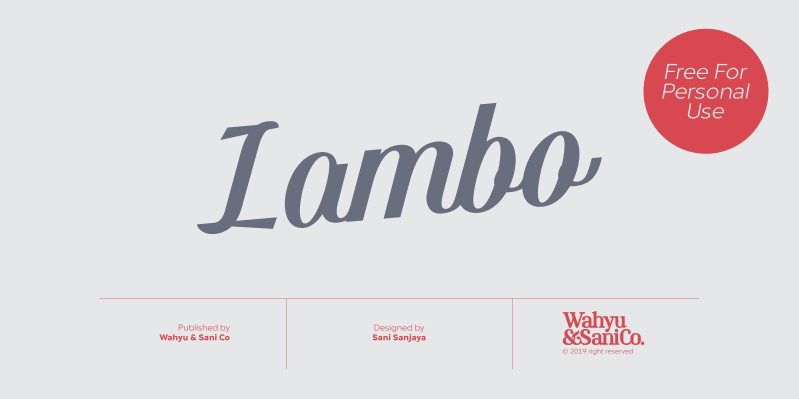
Lambo is a contemporary italic calligraphy script designed to work together in harmony that makes it very suitable for your graphic design project. It is consists of 7 styles from thin to bold and comes with stylistic alternated. To get the most out of this font, be sure to use an apps that support OpenType features.